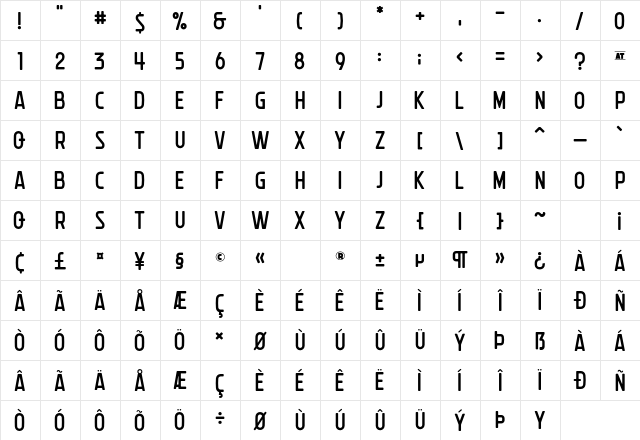
Mike Sans Free Regular
| Foundry | Factory738 |
| Designer | Wahyu Setiya Rahmawan |
Design Context for Mike Sans Free Typeface
Mike Sans Free offers clean, dependable letterforms without strong stylistic allegiance, making it a practical choice for designers who need flexibility.